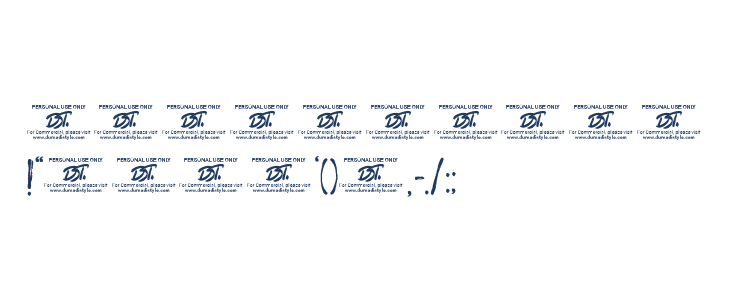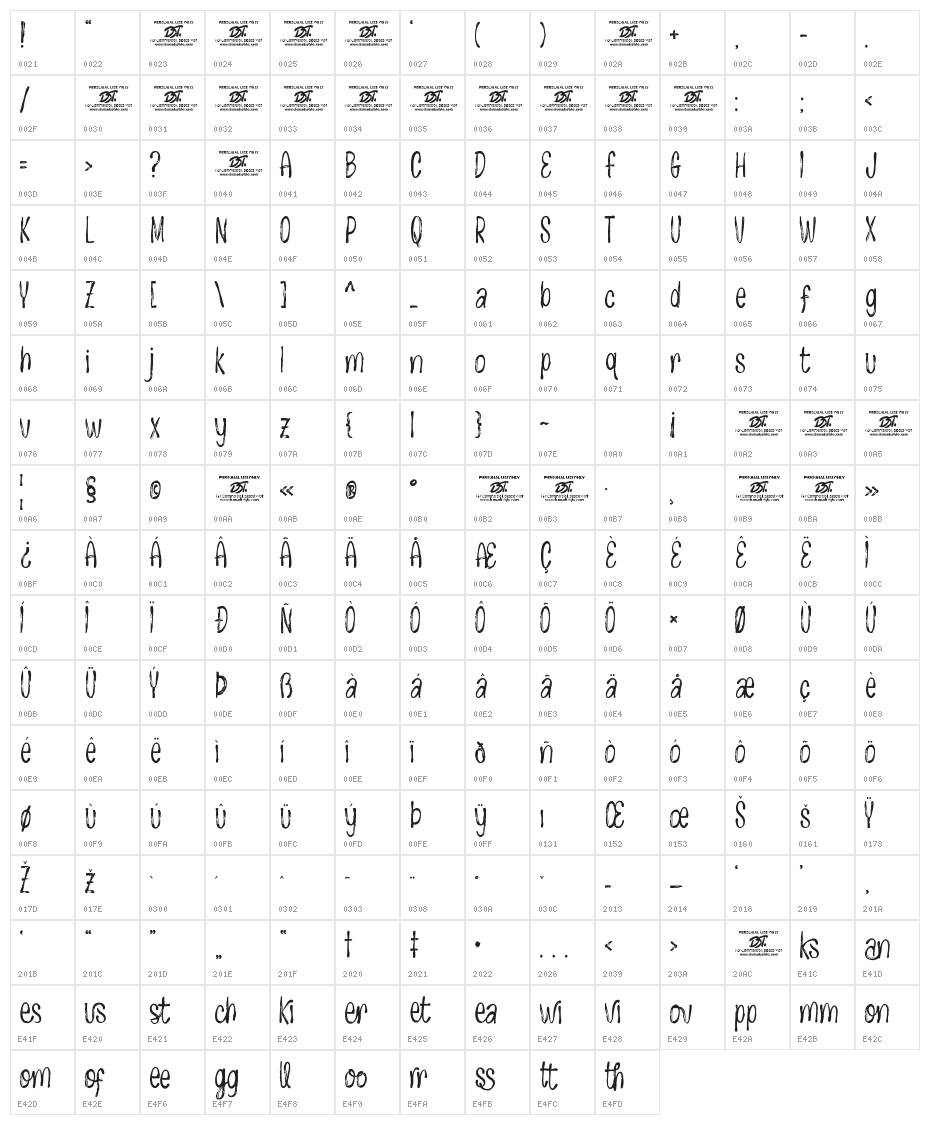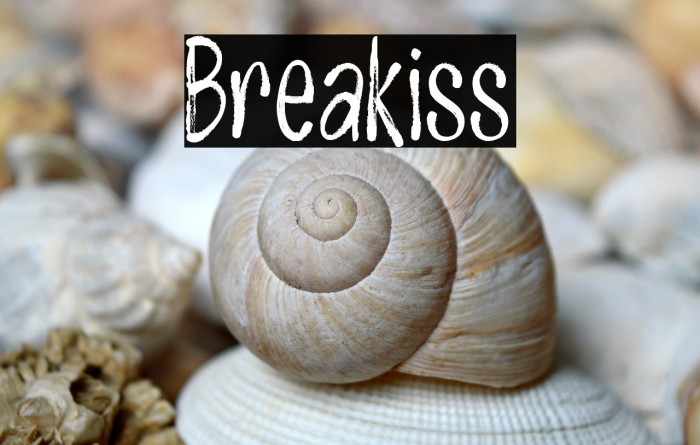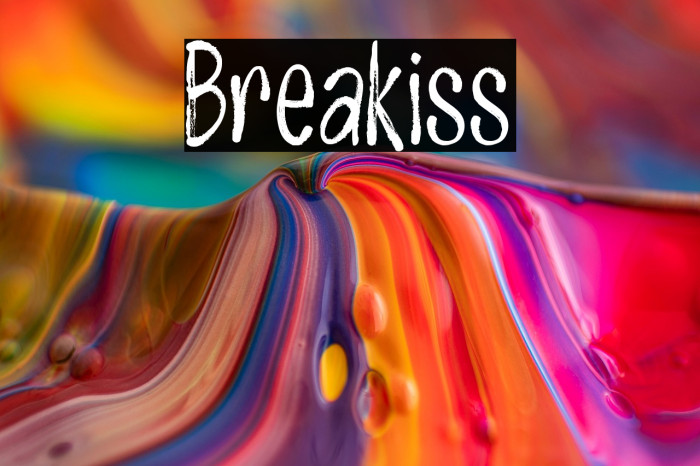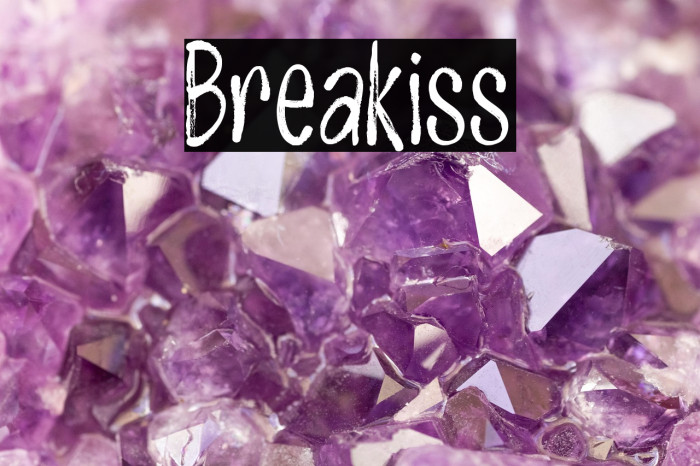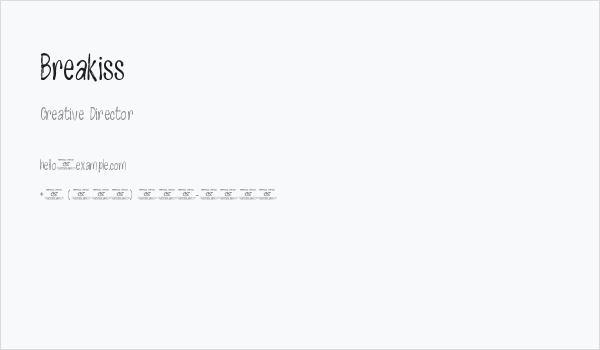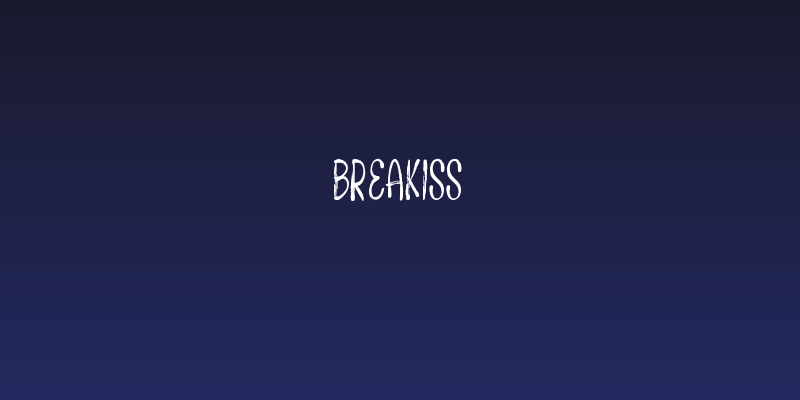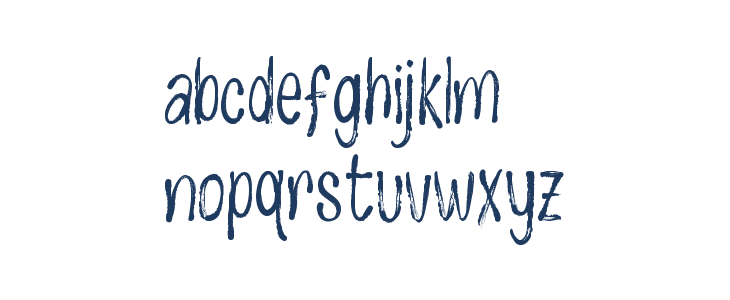
Breakiss Font
Breakiss Description
This font features a bold, hand-drawn style with a rough, textured appearance that gives it a unique and artistic look. The characters are slightly irregular, adding to the handmade feel, and the strokes vary in thickness, creating a dynamic and energetic vibe. The uppercase and lowercase letters maintain a consistent style, with elongated forms and a playful, informal touch. The numbers and special characters follow the same aesthetic, making the font versatile for creative projects. Its distinctive style makes it suitable for designs that require a personal, handcrafted touch.